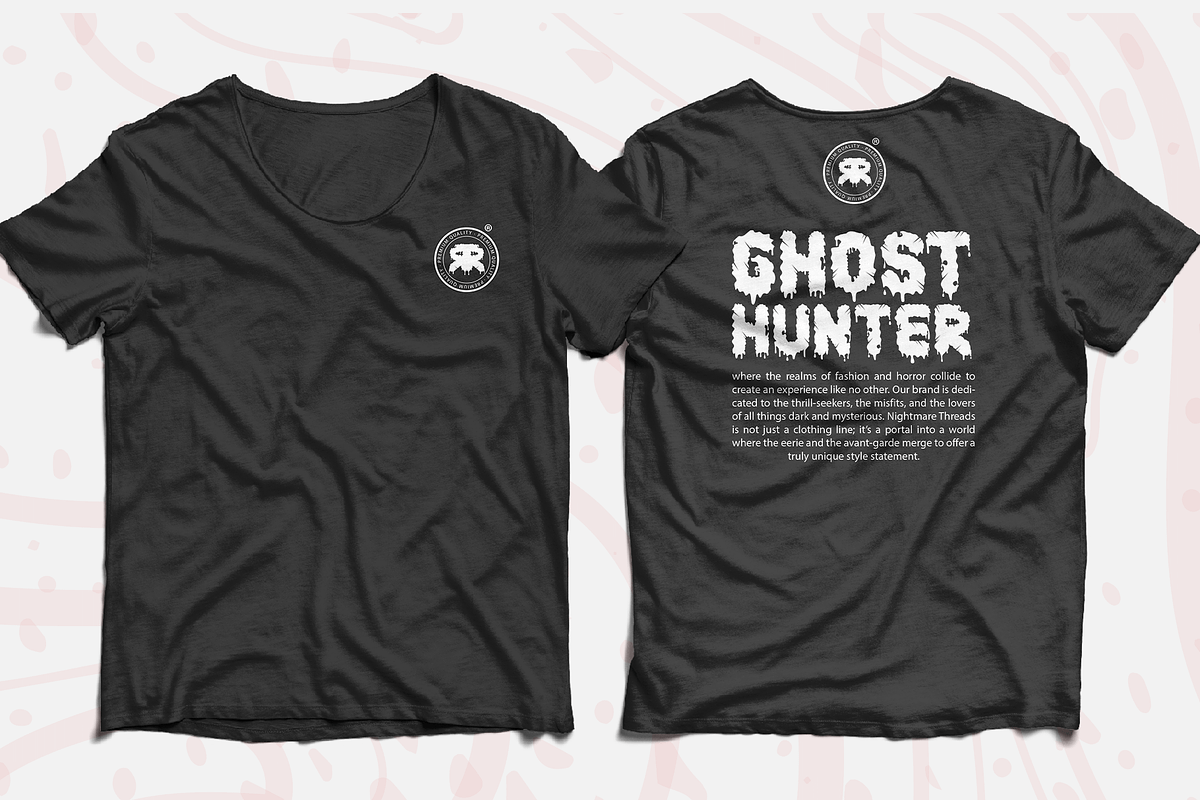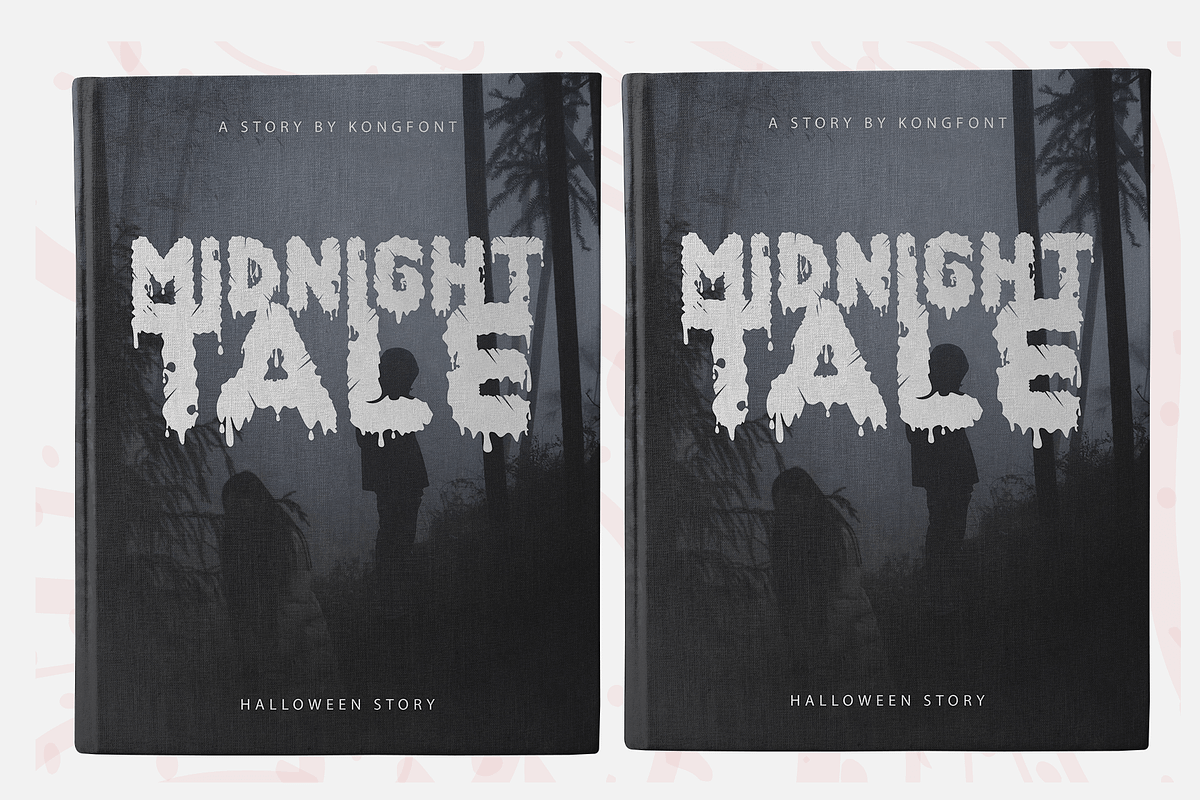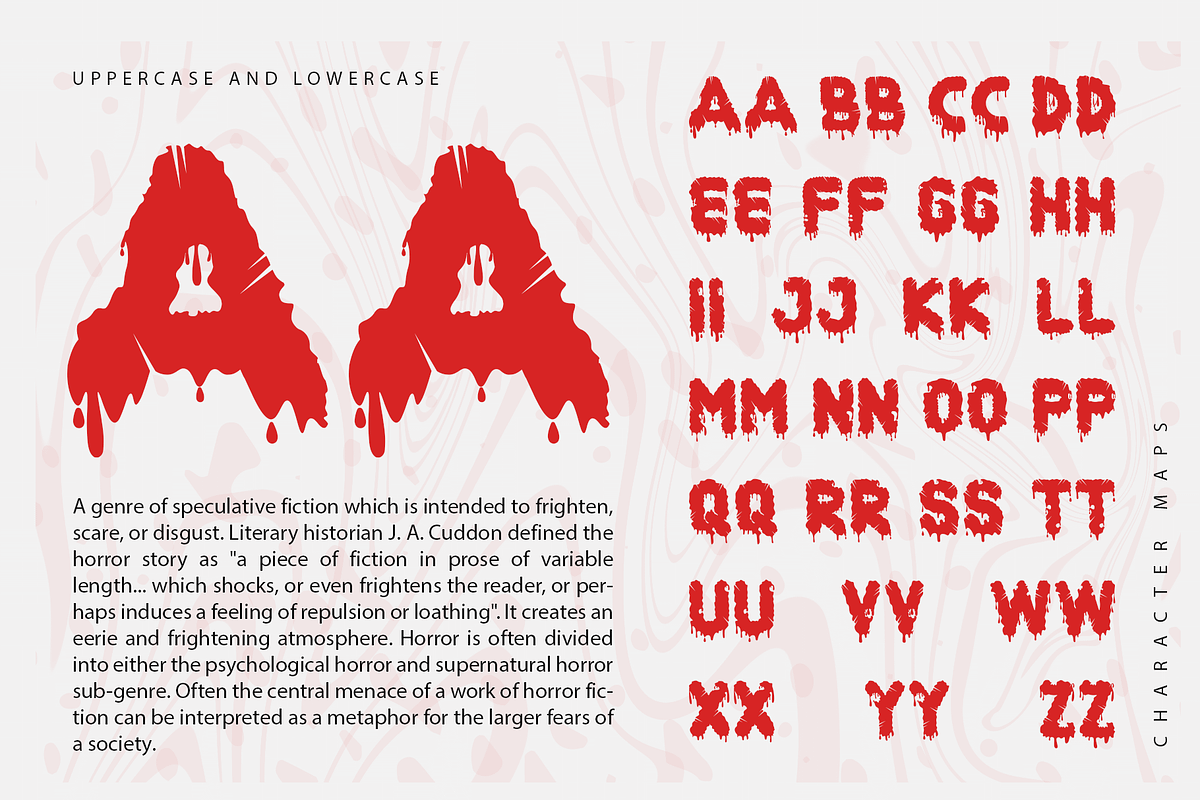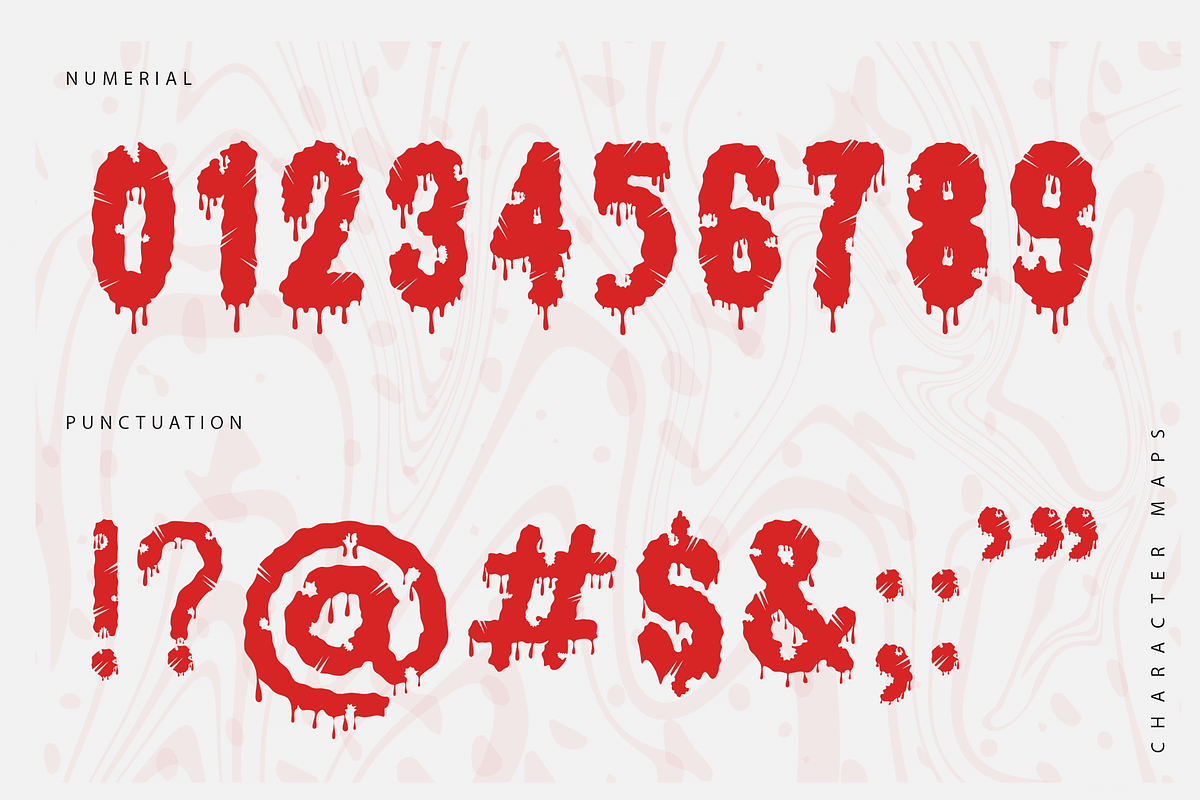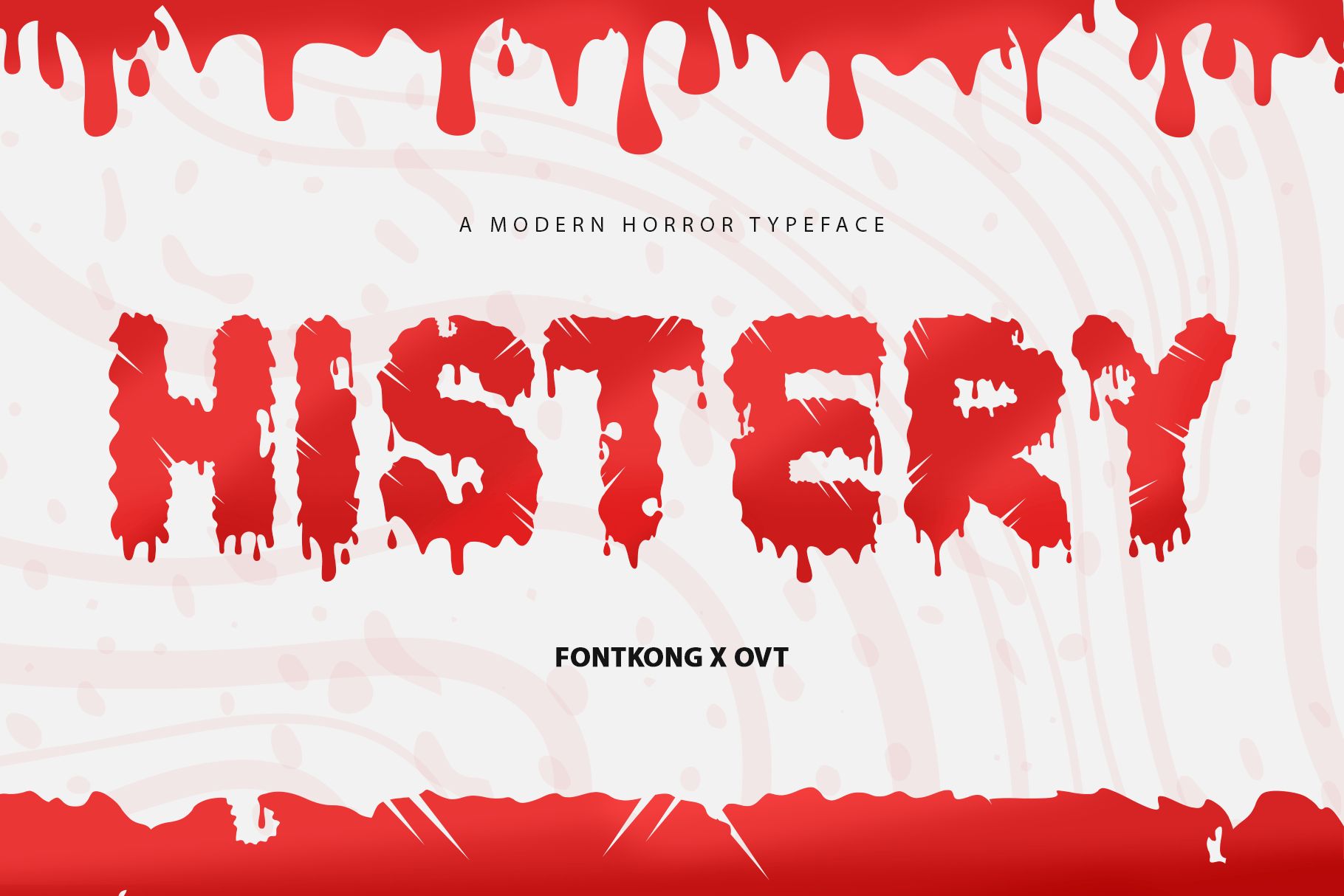
Histery - Modern Horror Typeface
Introducing "Histery," a modern horror typeface that brings an eerie and chilling atmosphere to your design projects. Perfect for graphic designers, filmmakers, and creatives looking to evoke fear and suspense, Histery offers a dark and haunting aesthetic ideal for any horror-themed design.
Ideal for movie posters, book covers, Halloween invitations, horror branding, and spooky event promotions, Histery’s jagged and menacing characters create a sense of unease and thrill. Each letter is meticulously designed to ensure readability while maintaining a terrifying appearance, making your designs both captivating and spine-chilling.
The "Histery" font includes a complete set of uppercase and lowercase letters, numbers, punctuation marks, and special characters. This comprehensive set allows for seamless integration into various design applications, from eerie branding to fearsome editorial layouts.
Bring the terror to your designs with Histery, the modern horror typeface that unleashes fear with every stroke.